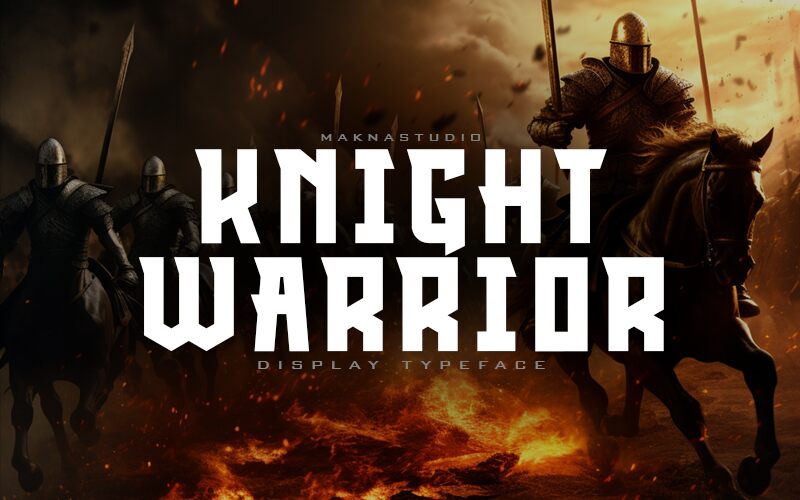
Knight Warrior font by MaknaStudio is a gothic modern font with a bold and condensed design. It follows the decorative style with medieval-inspired vibes and angular elements contributing to its commanding style. The font can be described as one with a strong presence where traditional aspects blend tightly in harmony.
A perfect fit for invitations, magazines, books, typography art, logos, branding, and more ideas. But posters, flyers, T-shirt designs, book covers and headings are all use cases that can make this free modish asset shine too!